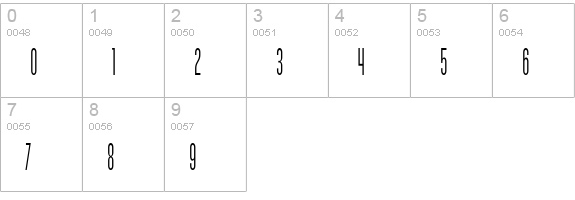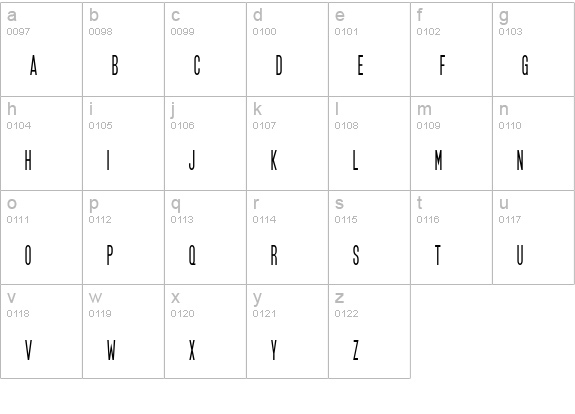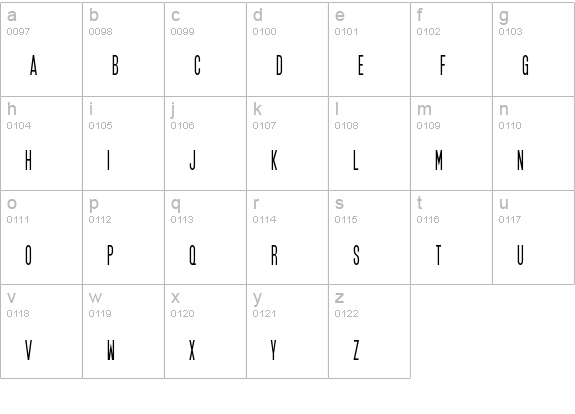
SF Movie Poster Condensed Font Details
SF Movie Poster Condensed is a distinctive, condensed-width variant in the SF typeface family \xE2\x80\x94 well suited to design and typography projects.
Introducing SF Movie Poster Condensed, a captivating font that breathes life into every science fiction movie poster! With its sleek and futuristic design, this font instantly transports you to the edge of space and time. Each letter is meticulously crafted to exude a sense of adventure and intrigue, making it the perfect choice for any sci-fi enthusiast. SF Movie Poster Condensed is not only visually stunning, but it also offers unparalleled versatility. Whether you're designing a poster for a blockbuster film or creating captivating graphics for your blog, this font delivers an unforgettable impact. From its sharp edges to its bold lines, every character captures the essence of the science fiction genre, leaving a lasting impression on your audience. But what sets SF Movie Poster Condensed apart is its availability for free download at FontsMarket.com. That's right, this incredible font can be yours without spending a dime, making it accessible to passionate designers, aspiring filmmakers, and sci-fi fans alike. Now, you can unleash your creativity without any restrictions, as SF Movie Poster Condensed is freely available for all your design projects. So, elevate your designs to new heights and embrace the power of SF Movie Poster Condensed. Download it today from FontsMarket.com and let your imagination take flight. Whether you're exploring the vast depths of space or unraveling the mysteries of the future, this font is your perfect companion, guiding you through every cosmic journey with style and grace. Get ready to captivate your audience and leave them in awe with SF Movie Poster Condensed.